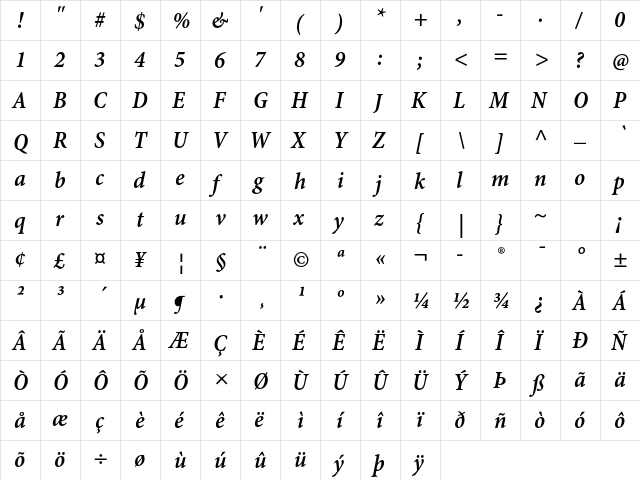
Minion Pro Semibold Cond Italic Caption Font Preview
| Designer | Robert Slimbach |
Design Context for Minion Pro Typeface
Minion Pro is a composed and adaptable typeface that performs quietly and consistently across a wide range of design contexts. The dynamic lean of this cut emphasises speed and emphasis in any layout. Its bold stroke weight gives it real presence on the page. The condensed width makes it efficient for tight spaces without sacrificing legibility.
Pro Tip: Use Minion Pro for emphasis, pull quotes, and subheadings where its slanted energy can add rhythm to the layout.